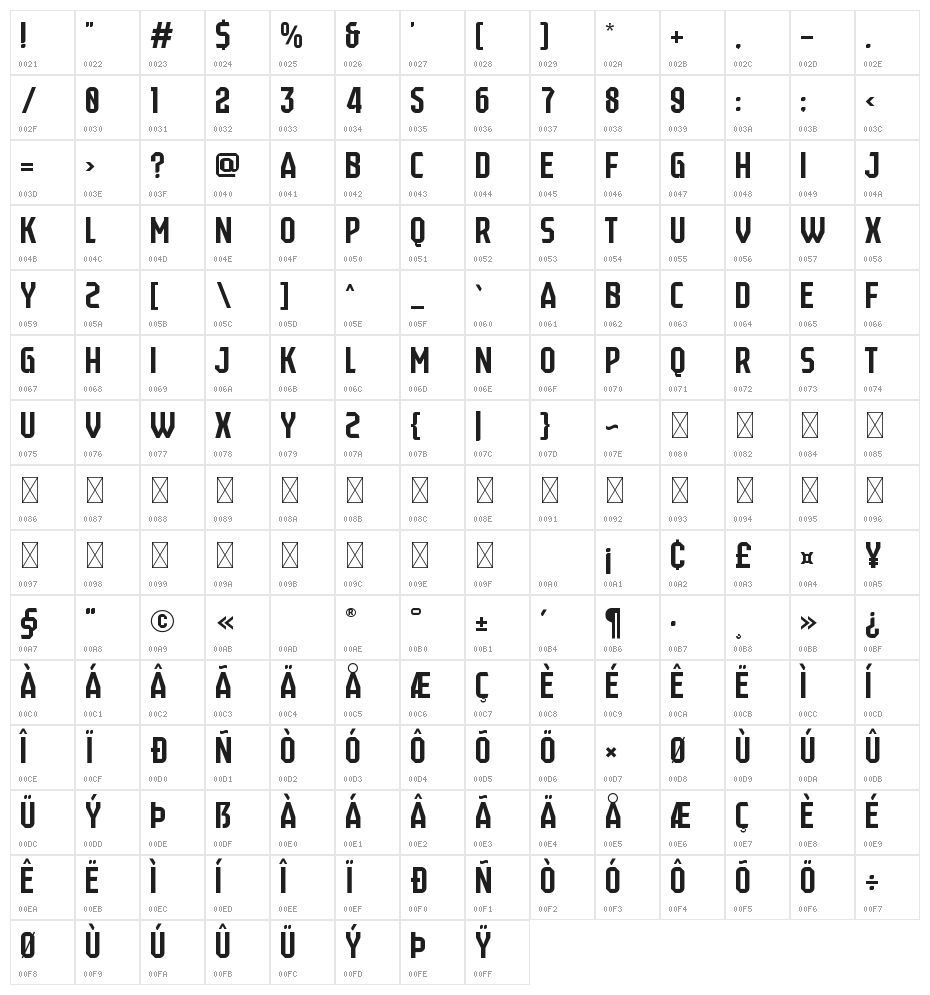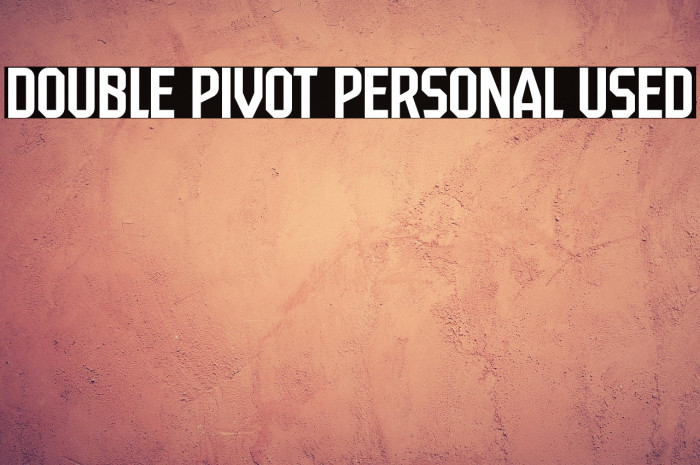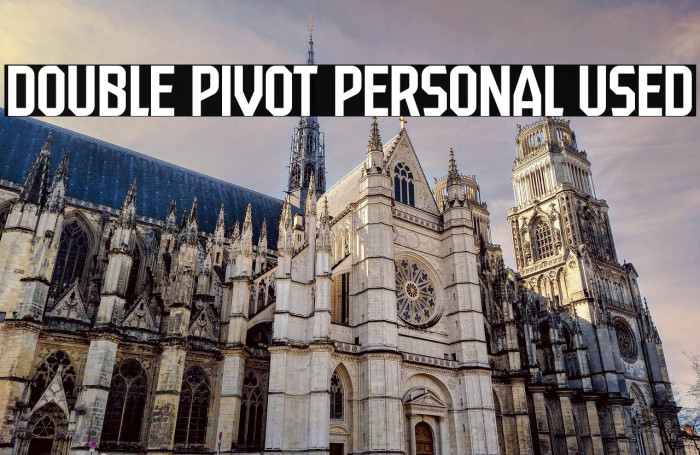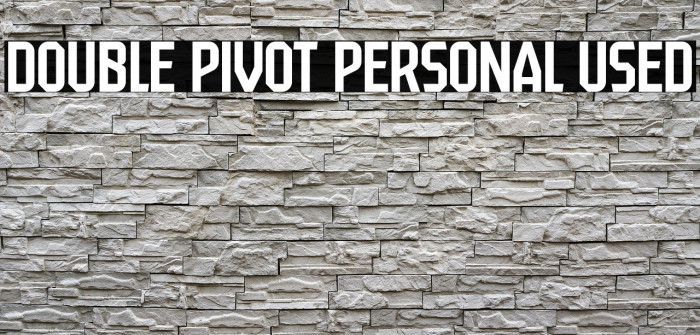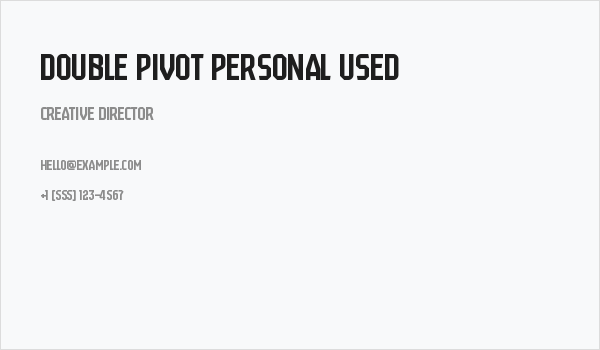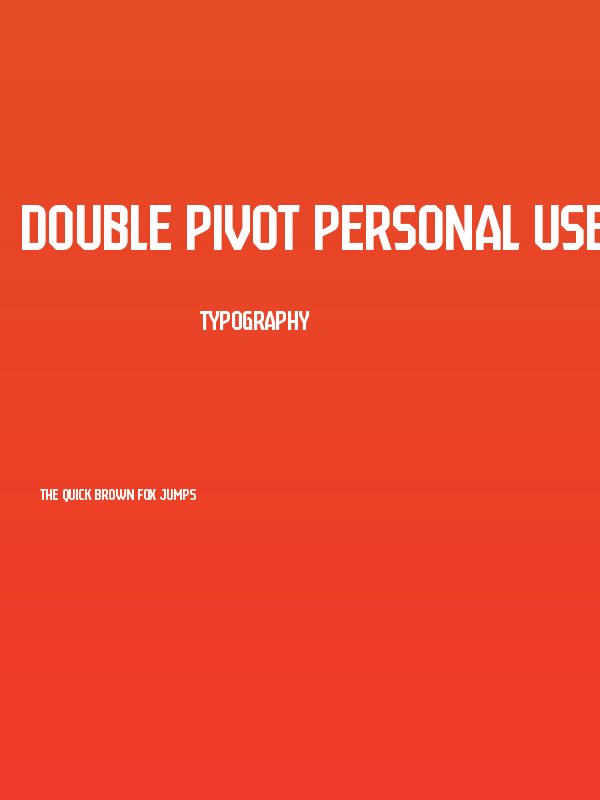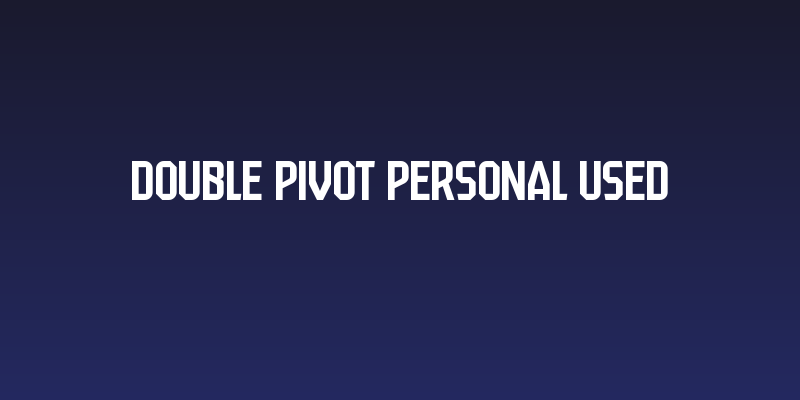
Double Pivot Personal Used Font
Double Pivot Personal Used Description
This font features a bold and geometric design with sharp angles and a strong presence. The uppercase letters are uniform in height, creating a cohesive and structured appearance. The numerals and special characters maintain the same boldness, ensuring consistency across all elements. The font's style is modern and assertive, making it suitable for attention-grabbing headlines or impactful logos. Its clean lines and distinct shapes give it a contemporary feel, while the uniformity of the characters adds to its readability.
| Proposed Projects | Ideal for branding, posters, headlines, and any design requiring a strong visual impact. |